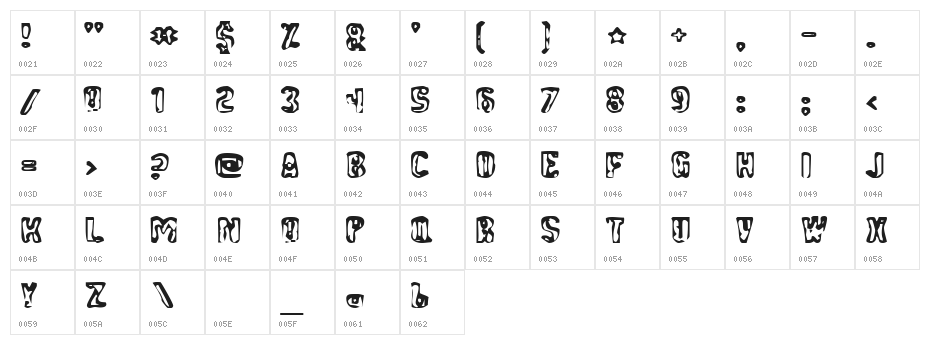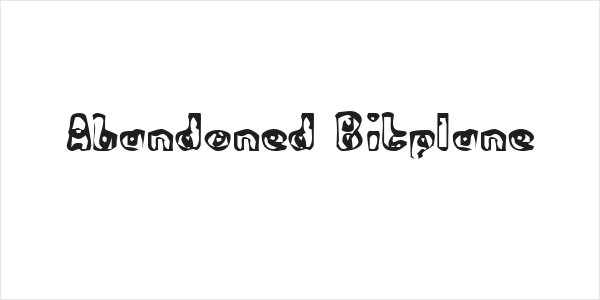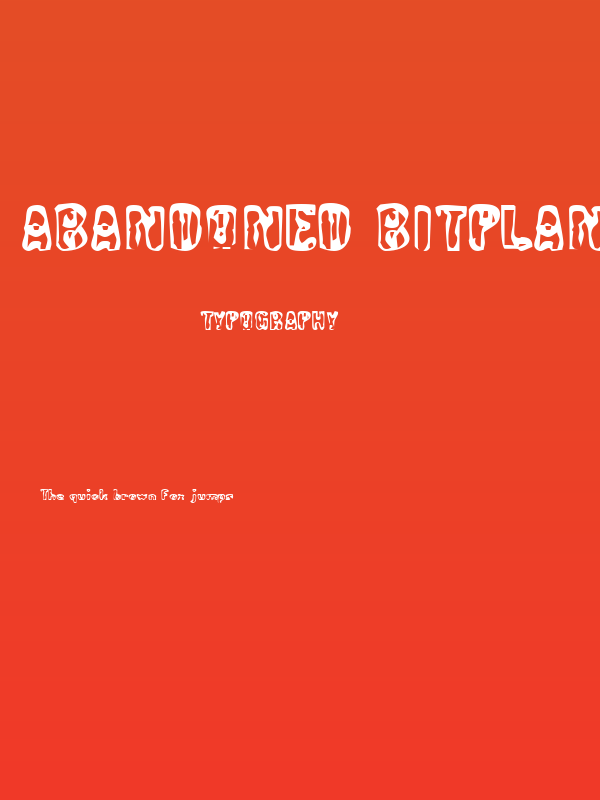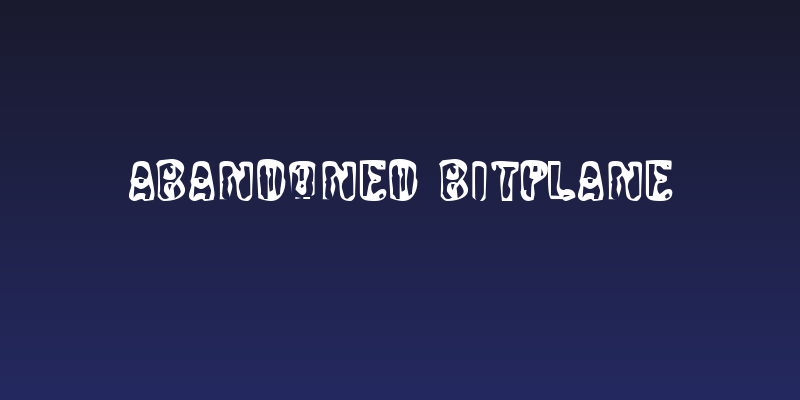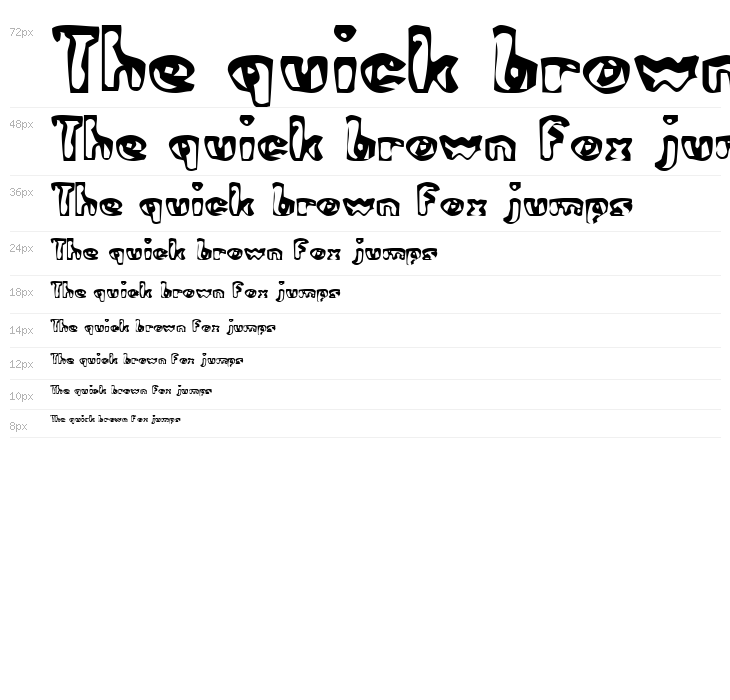
Abandoned Bitplane Font
Abandoned Bitplane Description
This font features a bold and abstract design with a distressed, grunge-like appearance. Each character is uniquely crafted with irregular edges and a mix of solid and hollow spaces, creating a chaotic yet artistic look. The uppercase and lowercase letters maintain a consistent style, with the numbers and special characters following suit. The font's playful and unconventional design makes it stand out, ideal for projects that require a strong visual impact. Its artistic flair and bold presence make it suitable for creative and edgy designs.
Proposed ProjectsIdeal for album covers, posters, street art, and edgy branding projects.